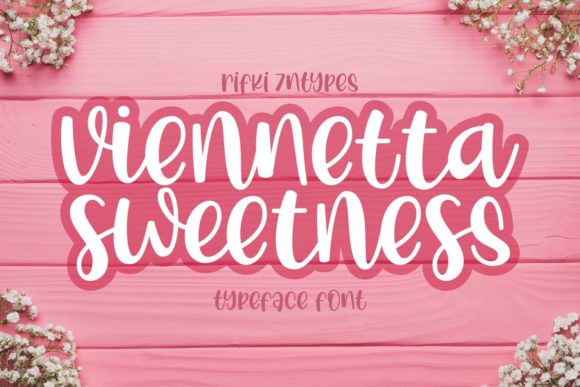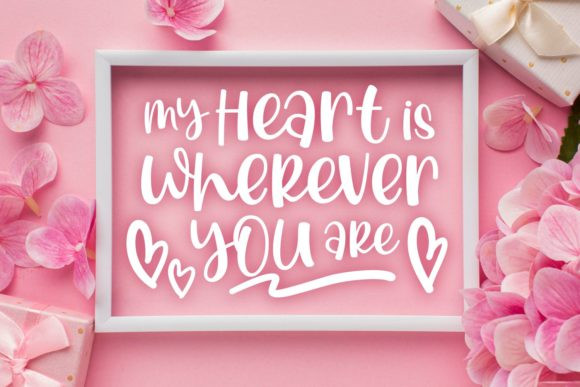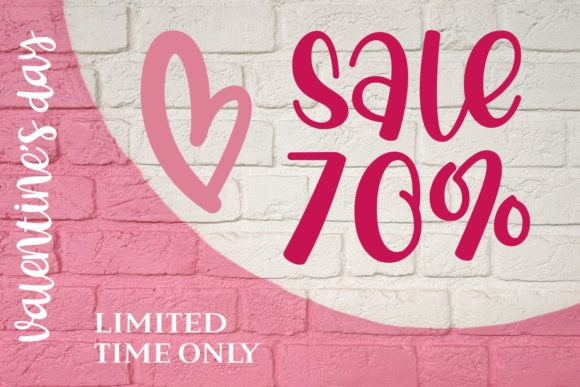
Viennetta Sweetness Font
Viennetta Sweetness is a whimsical script font that has a lively flow of lettering. It will look great no matter what you use it for!